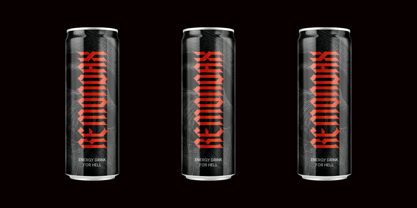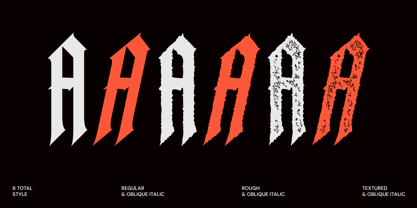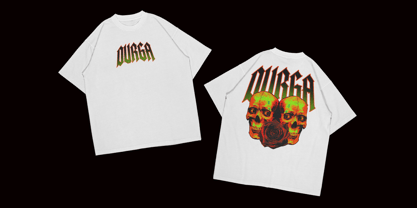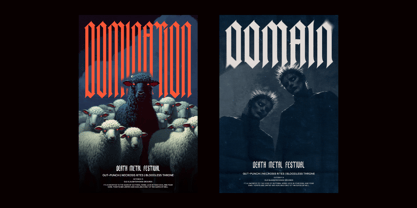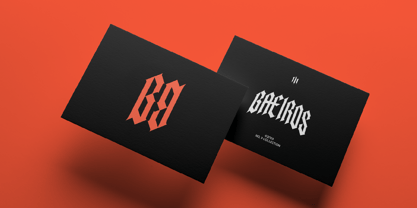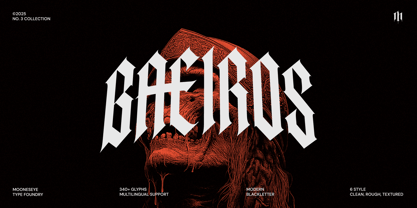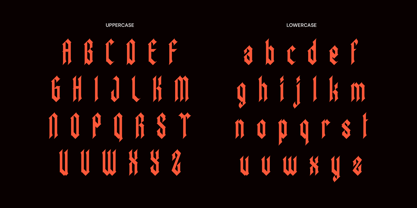
Baeiros
by Mooneseye Studio
The Baeiros Font Family was designed by Elhaq Farid and published by Mooneseye Studio. Baeiros contains 6 styles and family package options.
Baeiros is a powerful modern blackletter font designed to make an unforgettable statement. It takes the classic, gothic style and gives it a clean, geometric update, making it perfect for today’s boldest designs.
Perfect for brands that embrace a dark, edgy, or rebellious spirit. Whether you're designing for streetwear, a metal band, or a craft brewery, Baeiros delivers a look that is both sophisticated and badass. Get ready to create something iconic.
Designers: Elhaq Farid
Publisher: Mooneseye Studio
Foundry: Mooneseye Studio
Design Owner: Mooneseye Studio